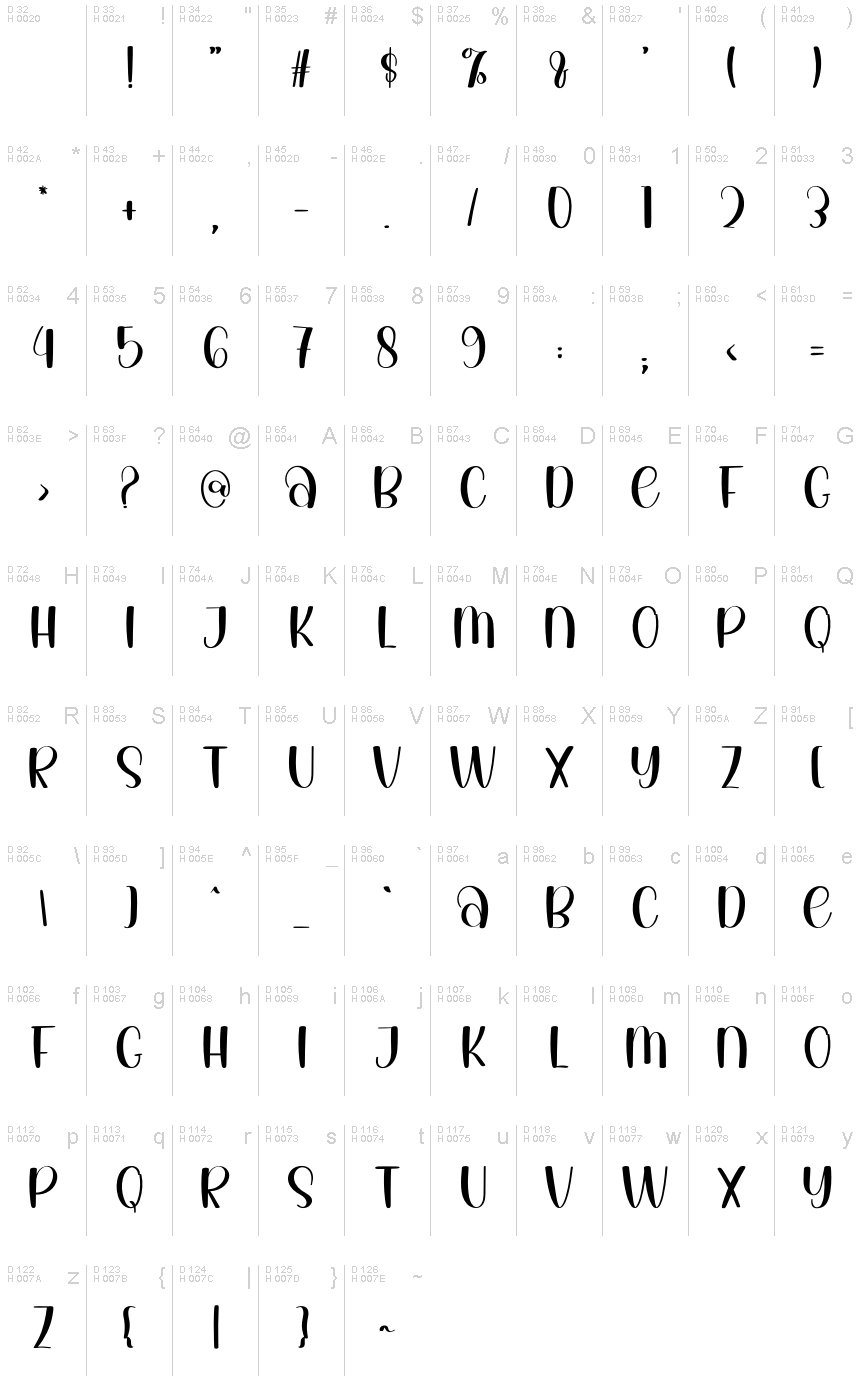
Saturday Holiday
Saturday Holiday, a captivating handwritten font crafted by PiPi Creative, exudes a whimsical charm that instantly captivates the eye. With its effortless brushstrokes and playful curves, this font evokes a sense of joyful spontaneity, inviting viewers to embrace the carefree spirit of a weekend getaway.
The font's organic flow and expressive strokes lend a distinctive personality to any design, effortlessly blending the realms of elegance and casual flair. Its versatile nature allows it to seamlessly transition between various design applications, from eye-catching logos and invitations to heartfelt greeting cards and playful social media content.